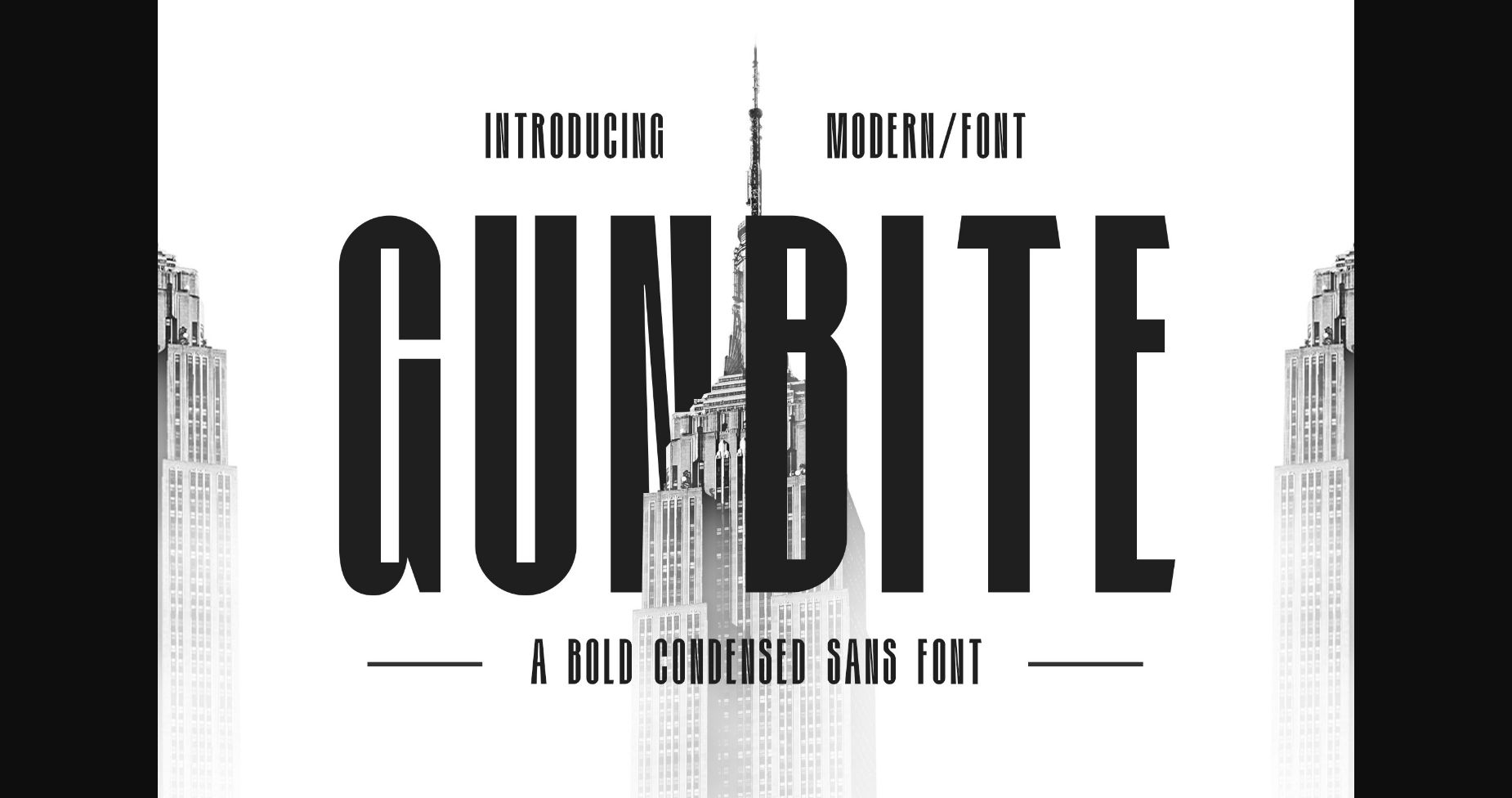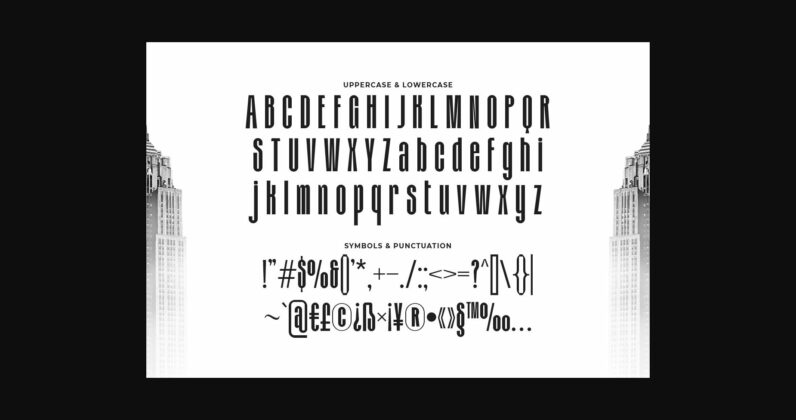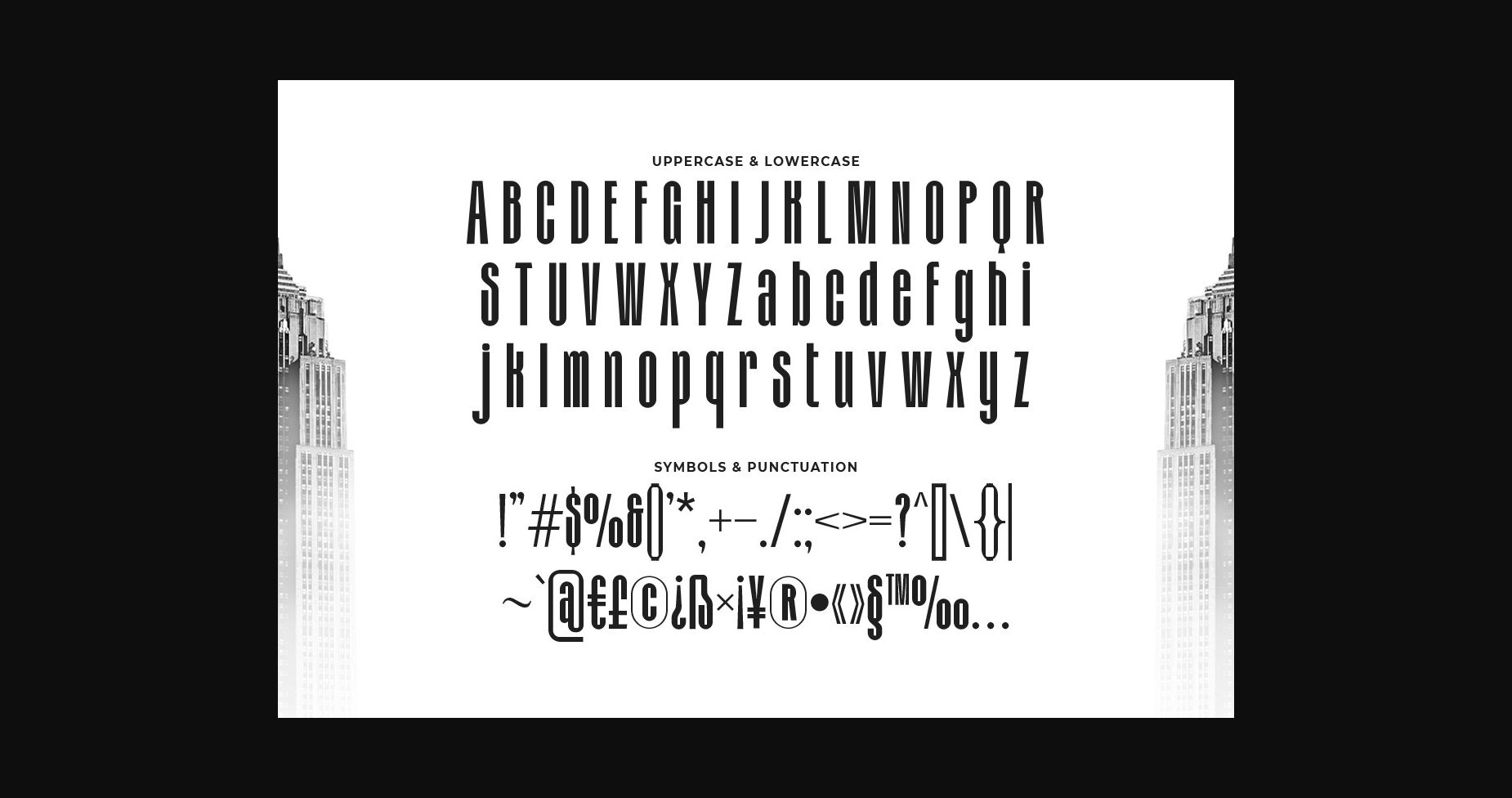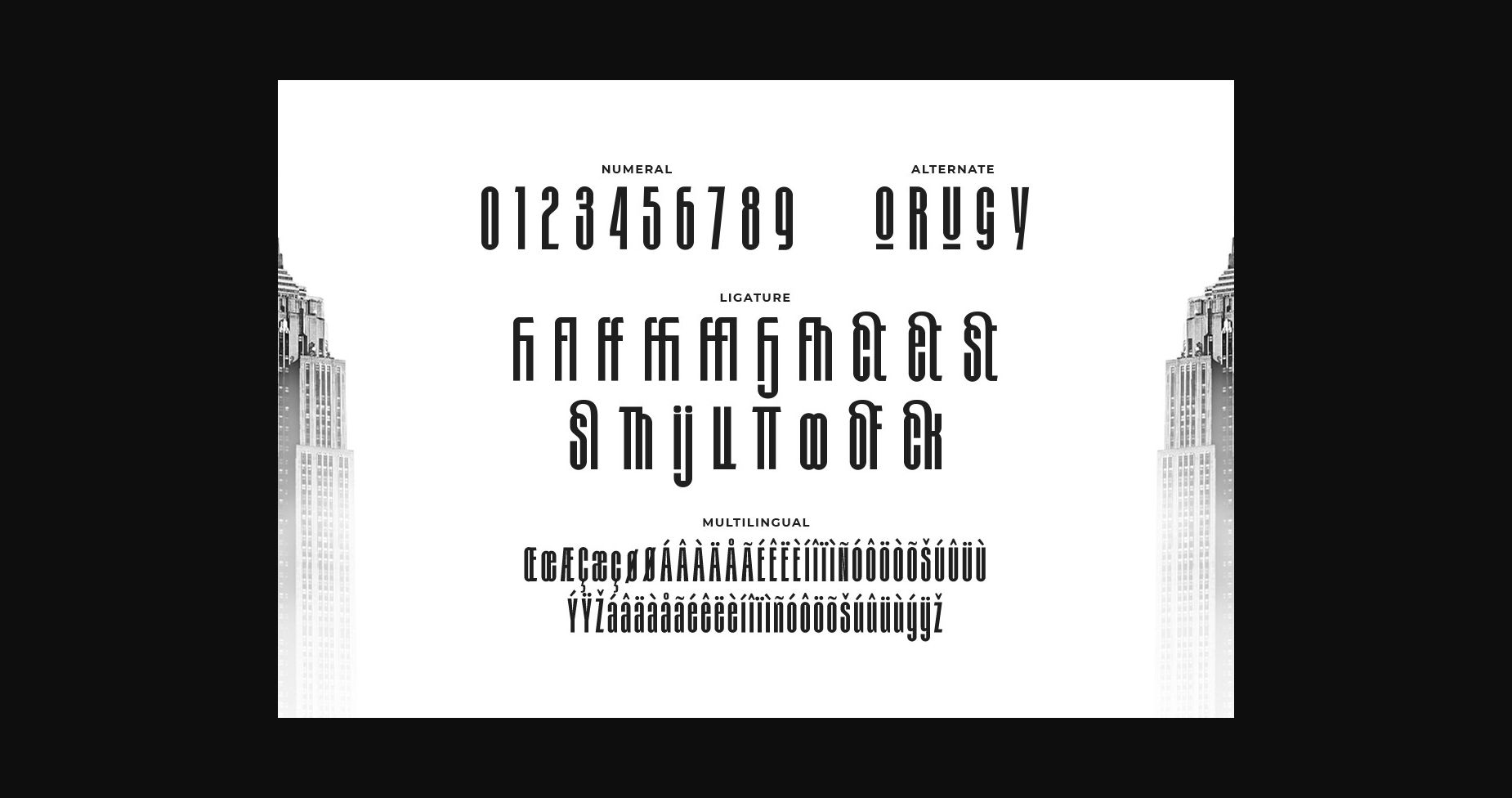
About Gunbite Font
Gunbite is a stylish condensed font that is perfect for your upcoming projects such as luxury logos, branding, classy editorial designs, magazines, cosmetic brands, fashion promotional, art gallery branding, museums, boutique branding, stationery designs, blog designs, modern advertising designs, card invitations, art quotes, home decor, book/cover titles, special events, and any more.